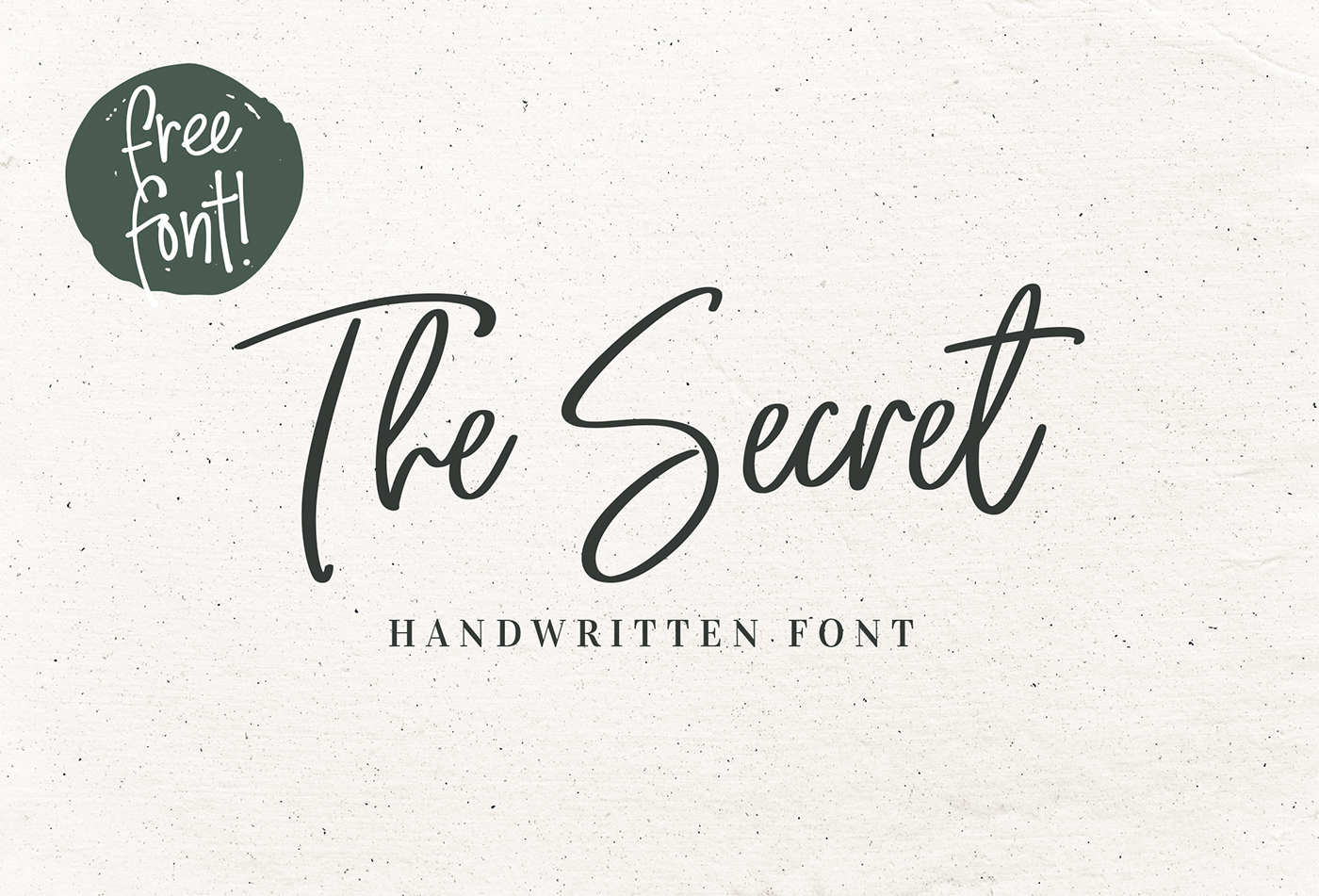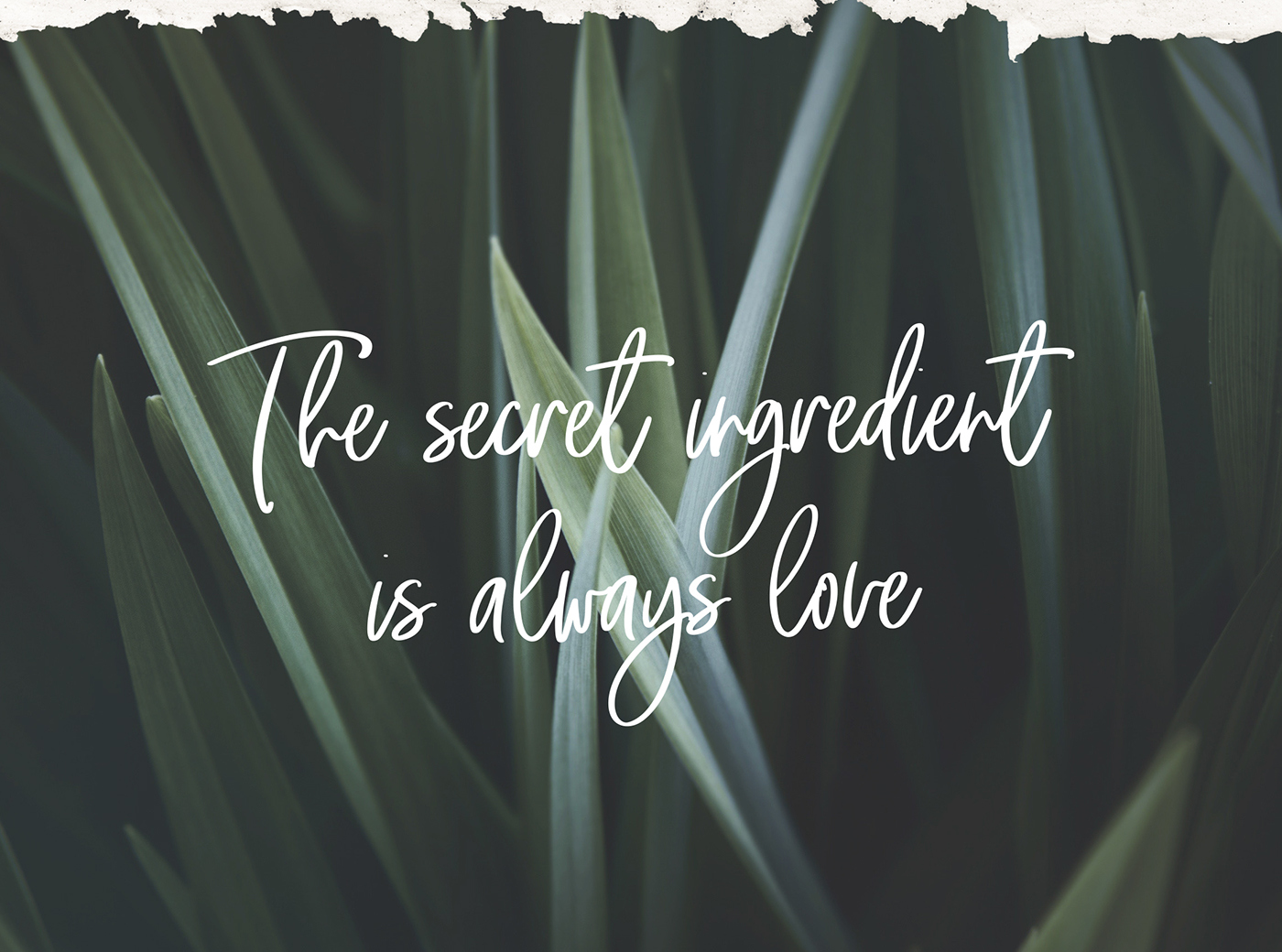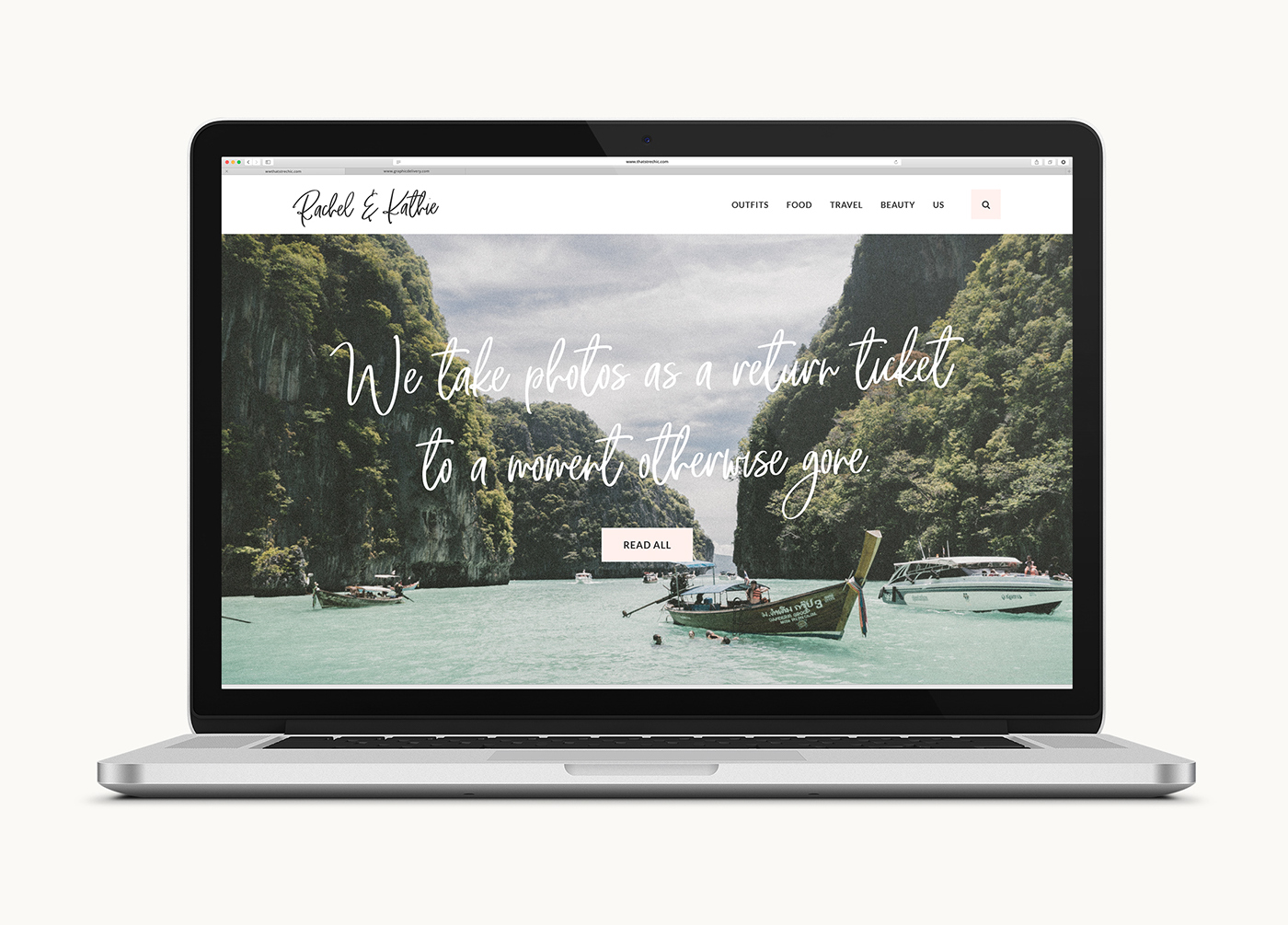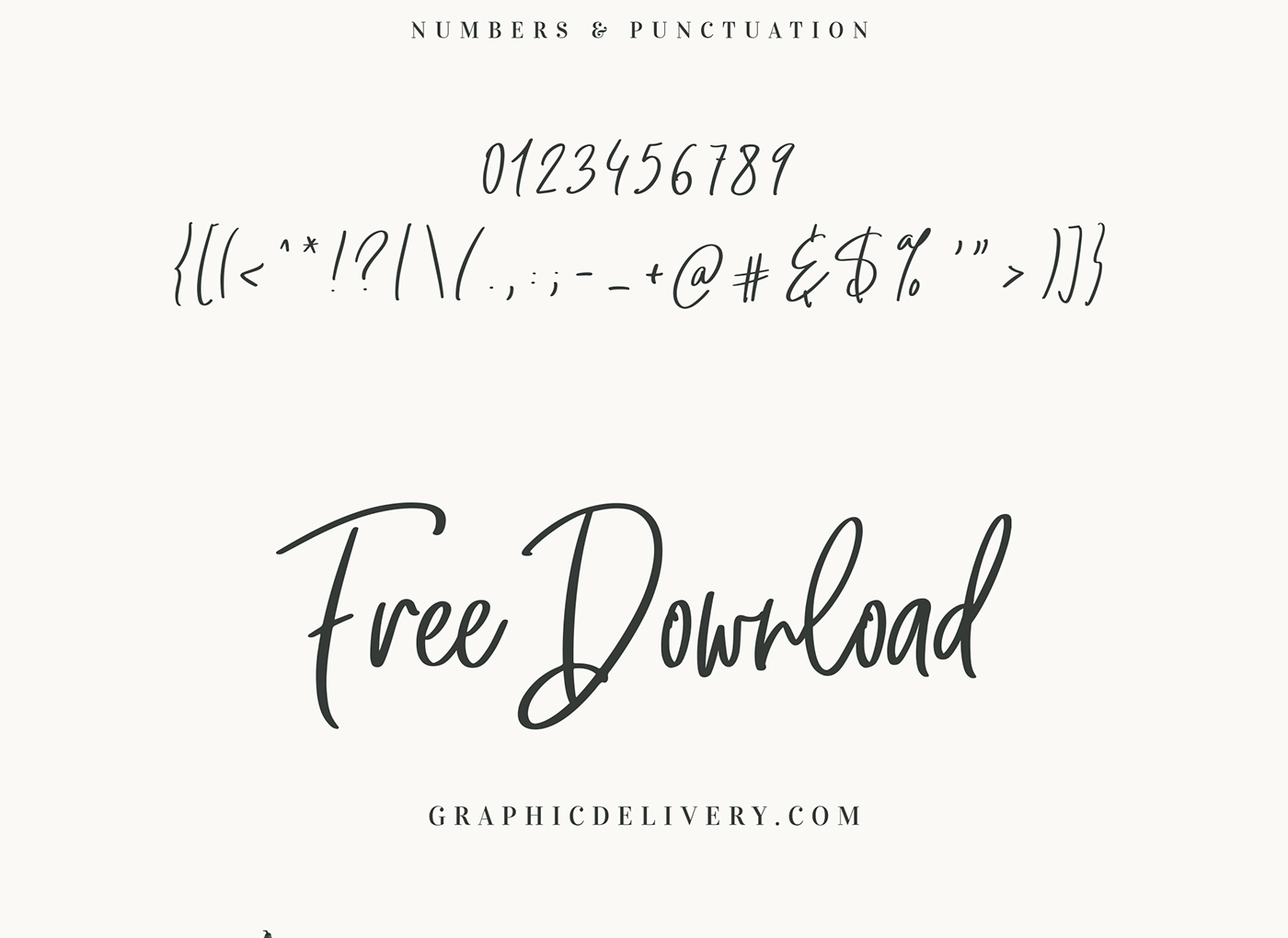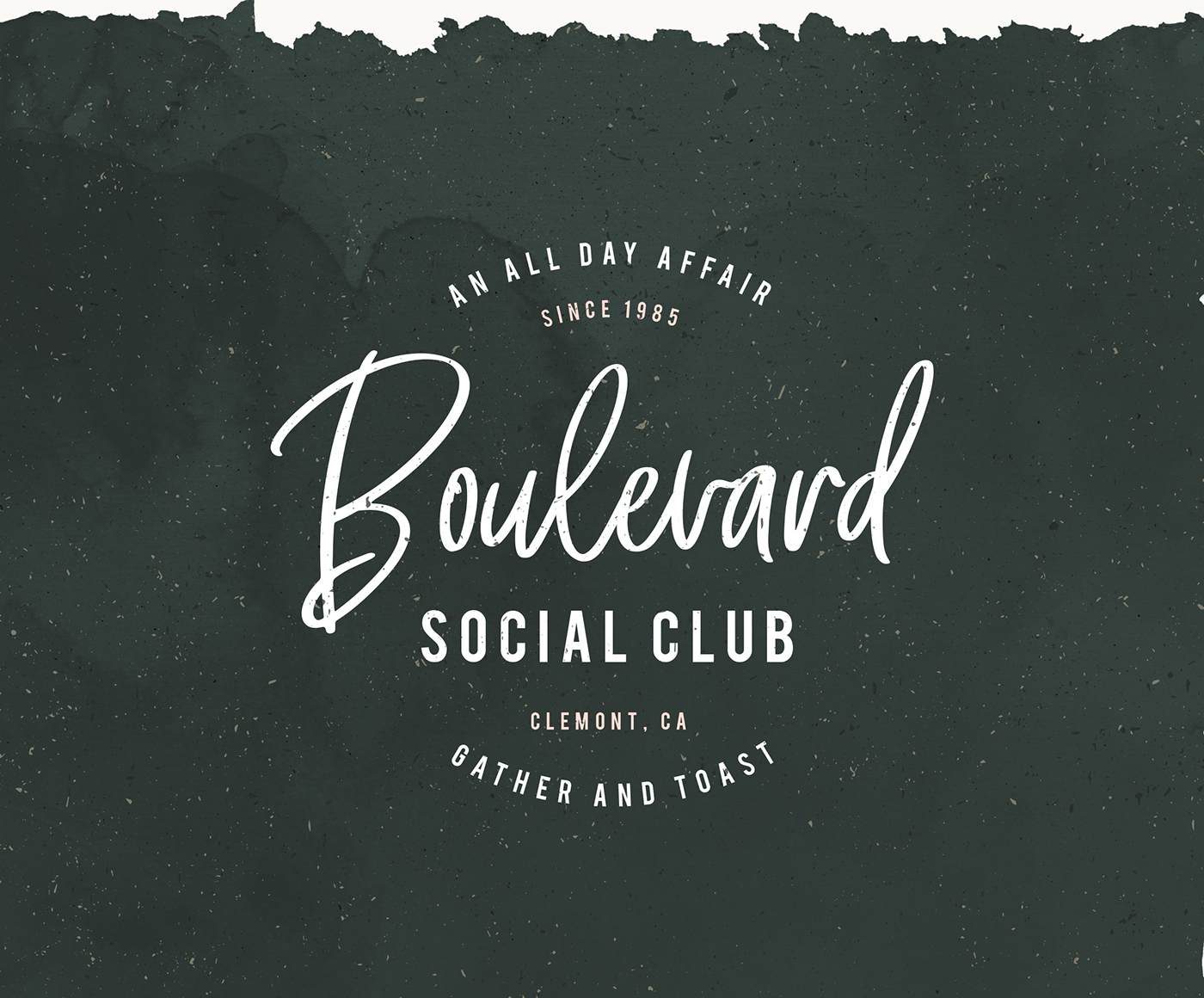
The Secret Script Font – Free Handwritten Font
If you are looking for a handwriting then this would be a great choice, it would not take much of your time. Introducing The Secret Script Font! The Secret designed and shared by VladCristea. The Secret is a playful font, which can be used for all kinds of creative projects: logos, branding or on items for sale such as prints, mugs, pillows, merchandise etc.